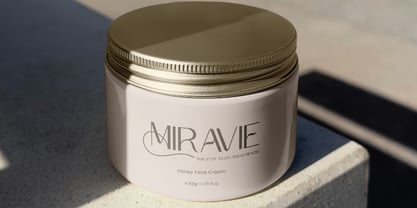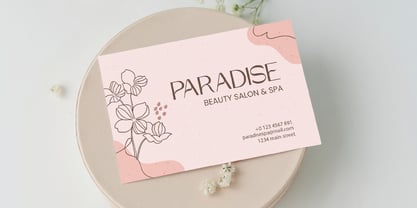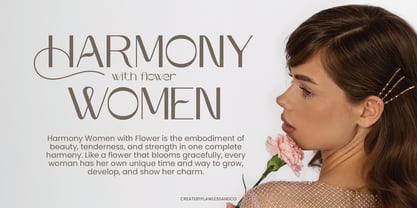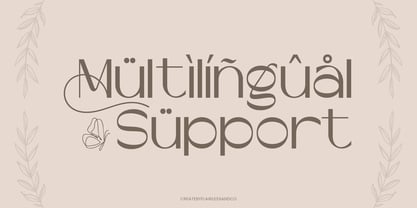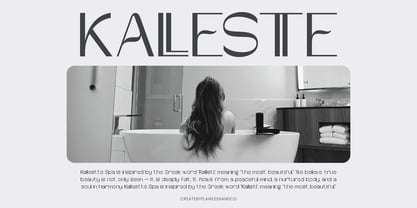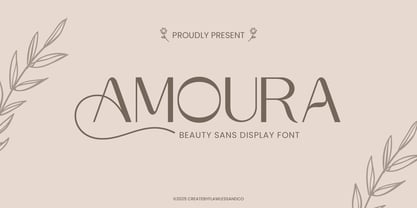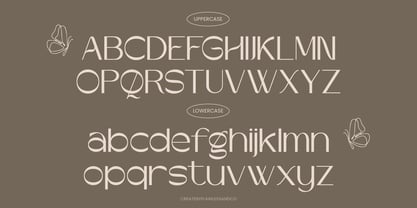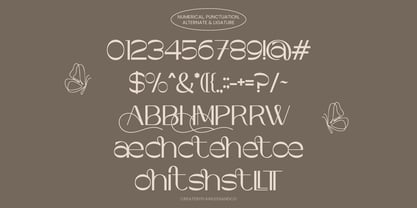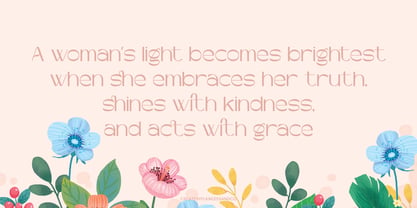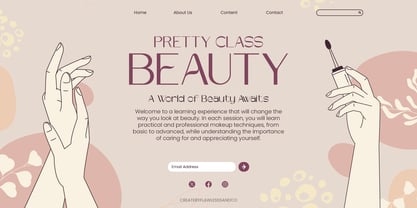
Amoura
AMOURA is a refined sans display font that embodies elegance, softness, and modern femininity. With graceful curves and delicate alternates, every letter flows like a poetic rhythm—perfect for capturing attention in beauty, fashion, and lifestyle designs. Its clean and stylish form brings a touch of sophistication, making AMOURA a go-to choice for creators seeking charm and refinement in their visual storytelling.
Features :
Multilingual, Uppercase alphabet A-Z, Lowercase alphabet a-z, Numbers 0-9, Some punctuation, Alternates & Ligatures